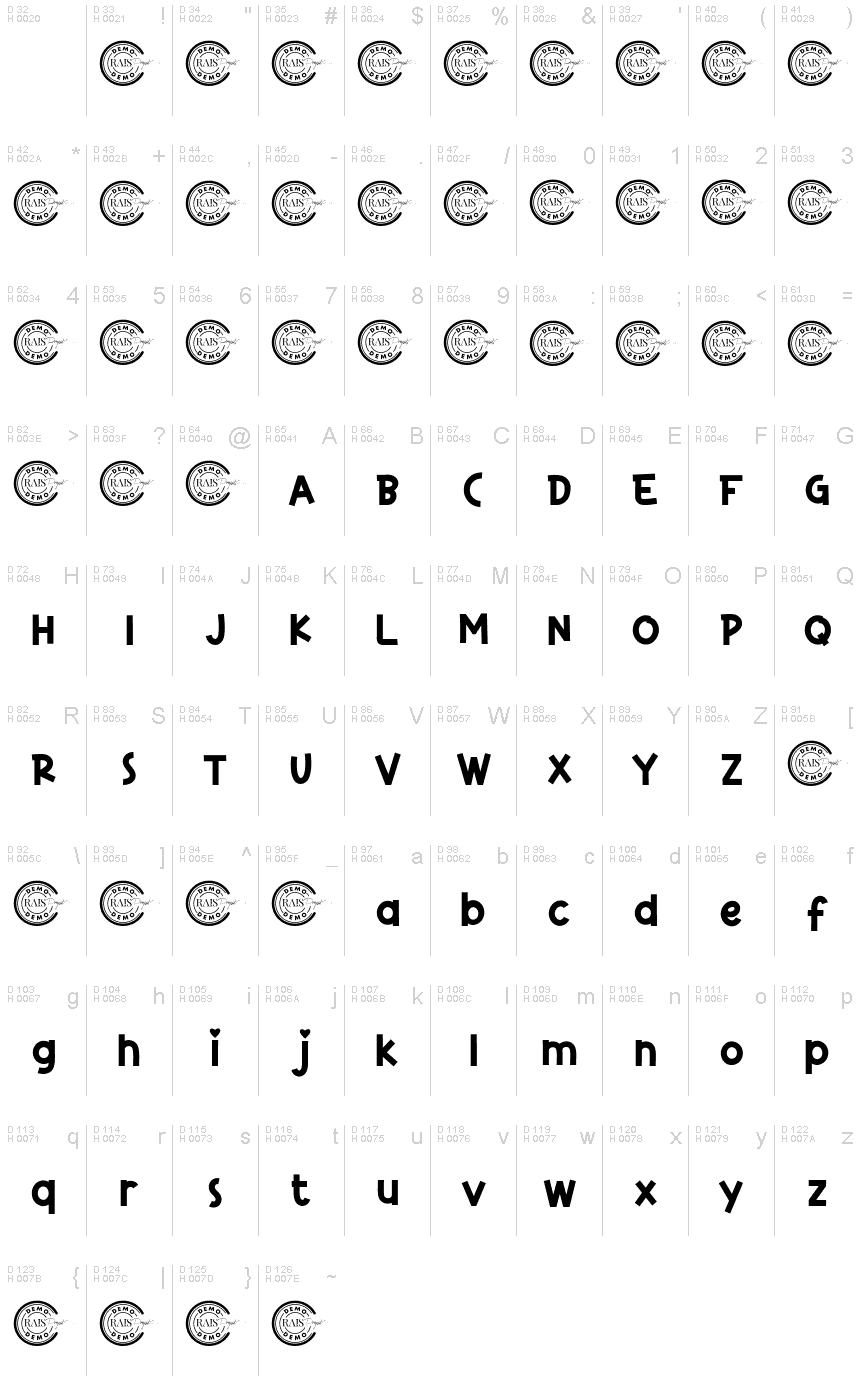
Love Saturn is the perfect display font for your creative projects. Designed by RaisProject, this semi-bold typeface features a playful cartoon style that will make your designs stand out. Its unique curvature and boldness make it ideal for logos, branding materials, packaging designs, and even children's books. The Love Saturn font adds a touch of fun and uniqueness to any project you use it in. So whether you're designing a website or creating a poster, this font is sure to catch attention and leave an impact on your audience. Start using Love Saturn today and let your creativity soar!
Love Saturn Demo